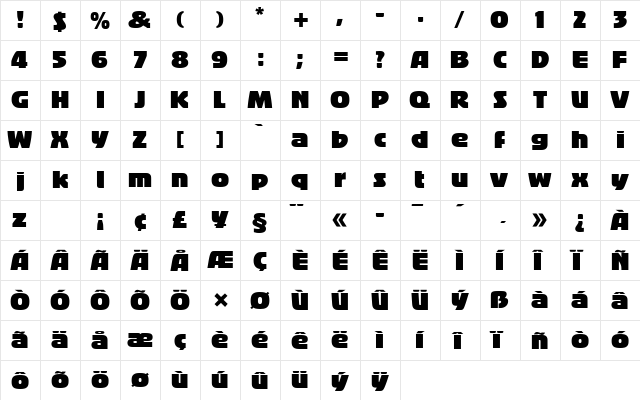
Bigband Regular
Design Context for Bigband Typeface
Bigband is a composed and adaptable typeface that performs quietly and consistently across a wide range of design contexts.